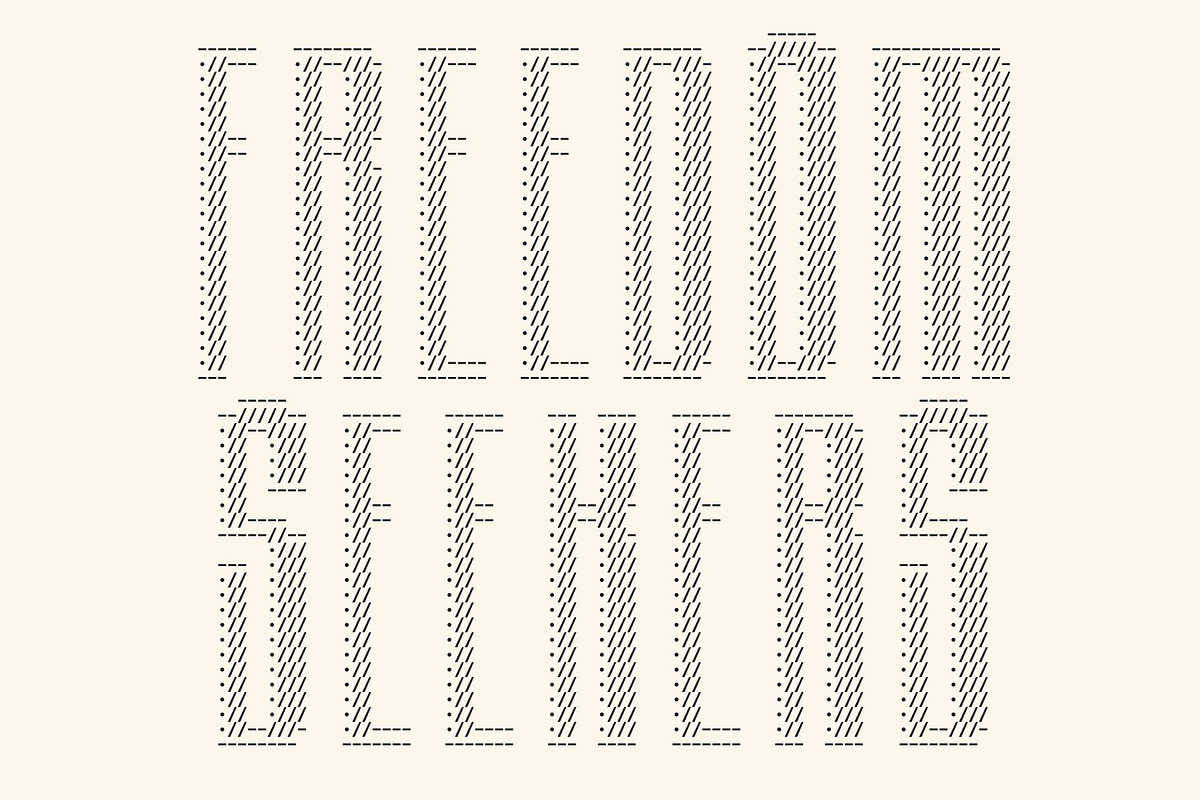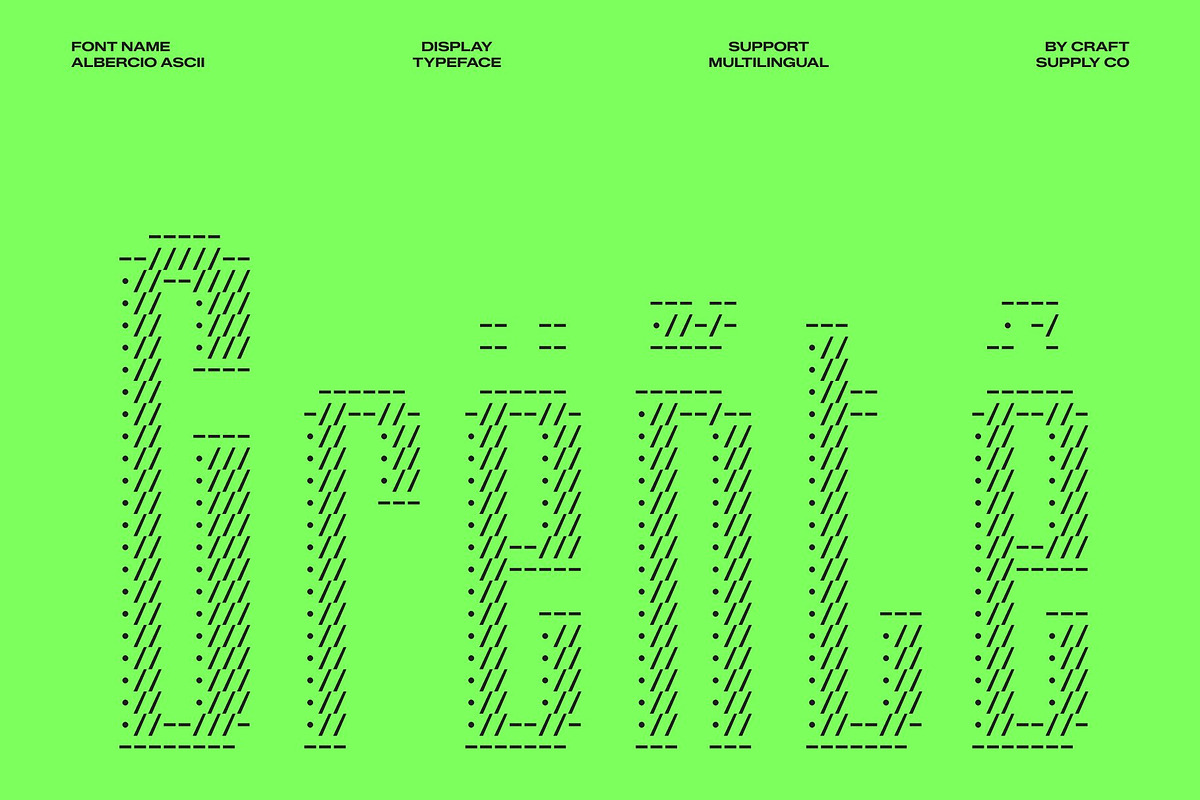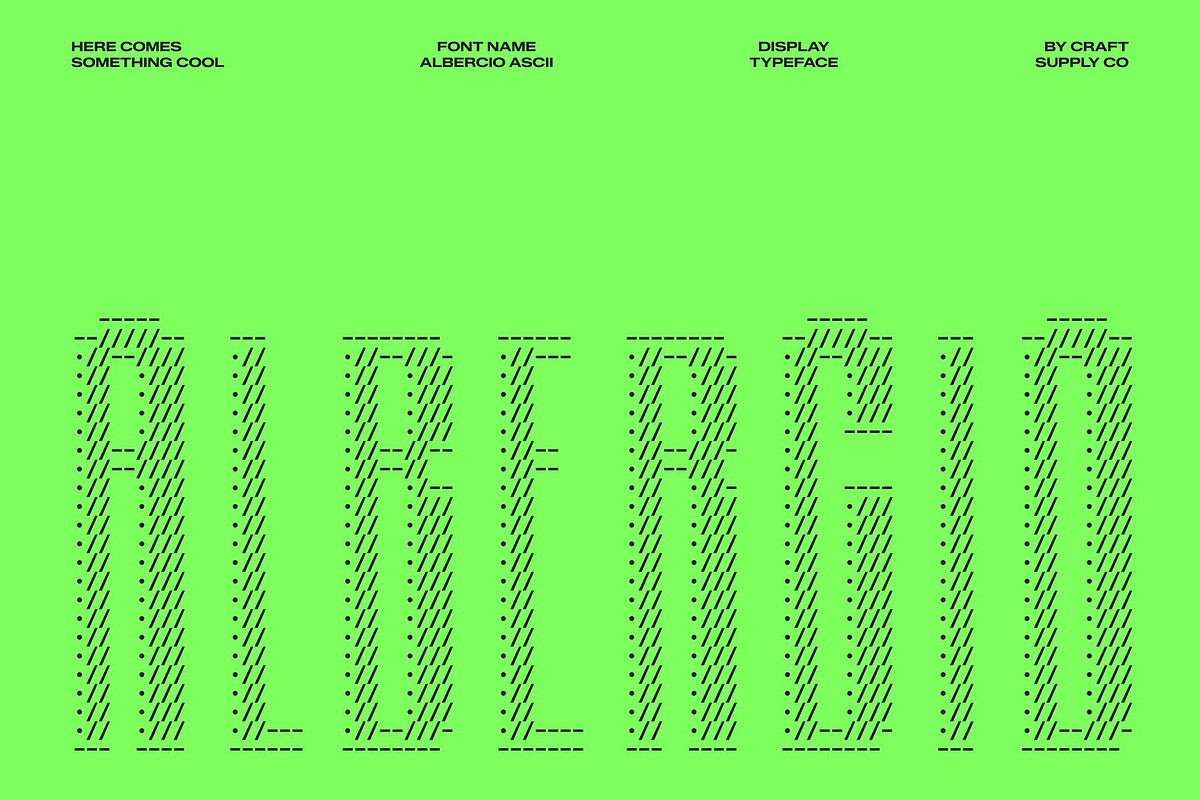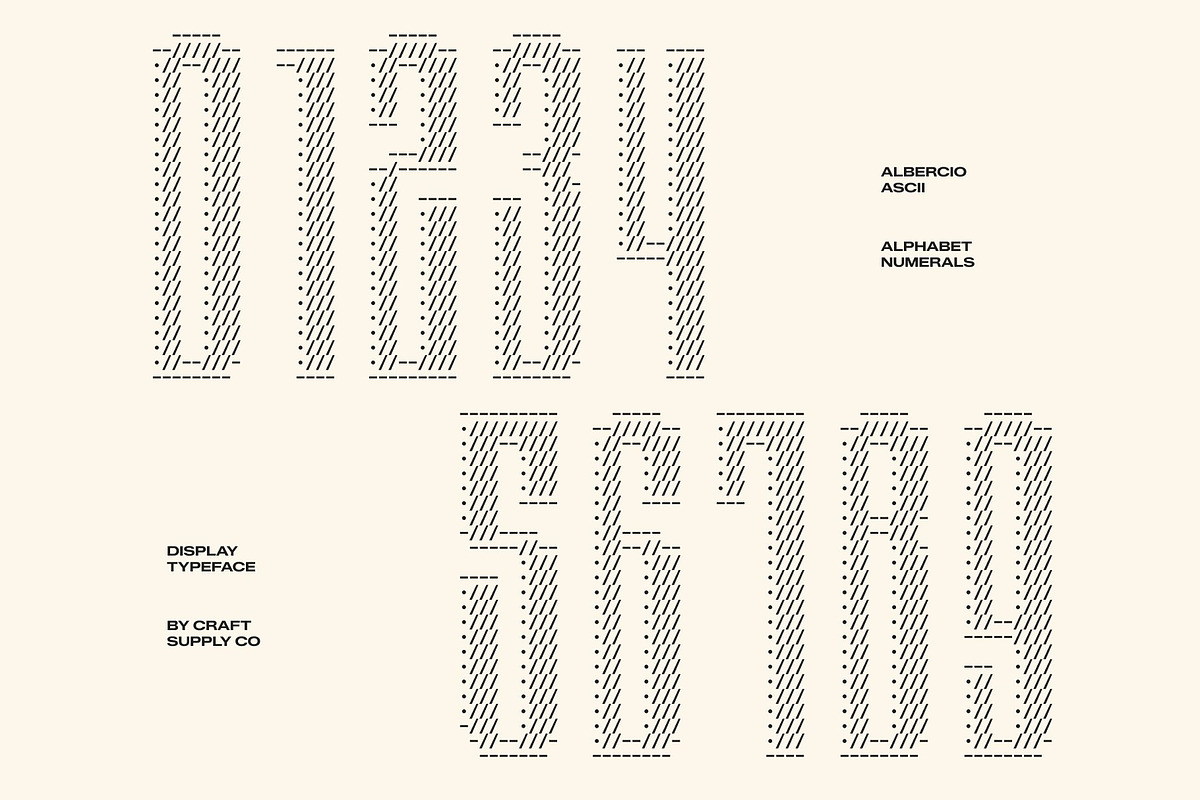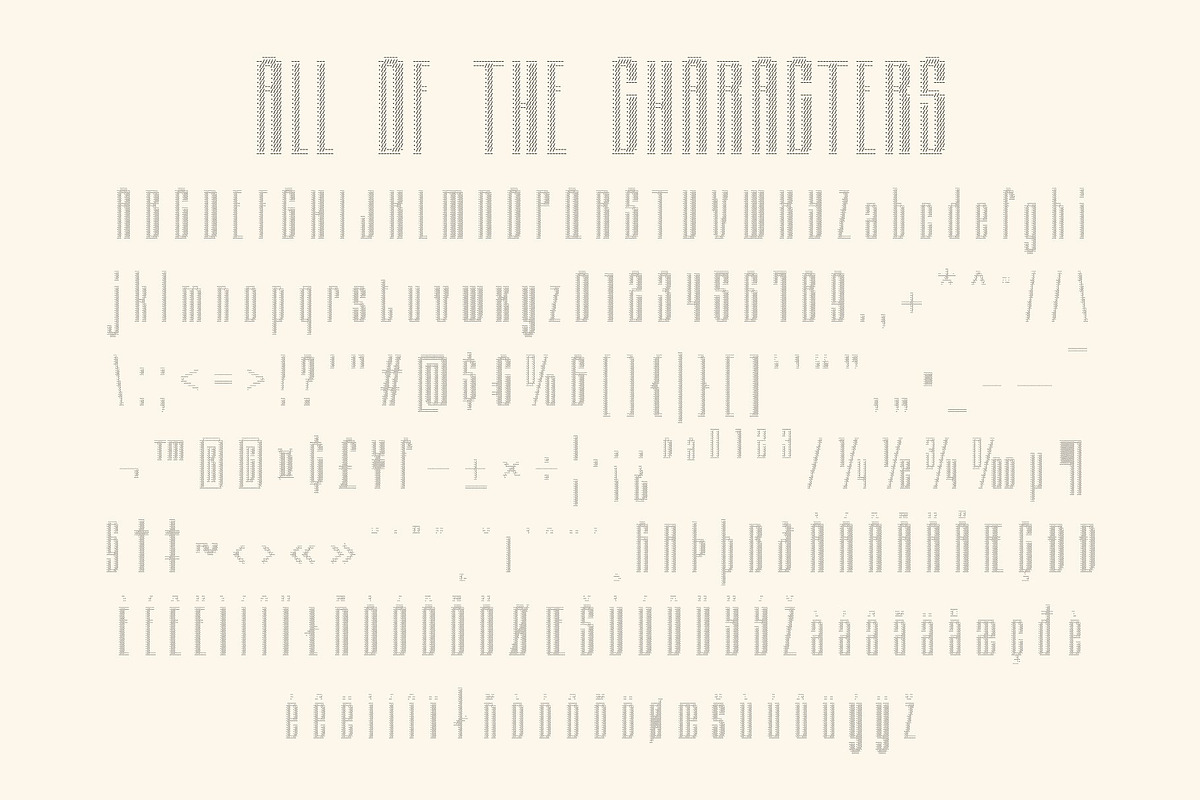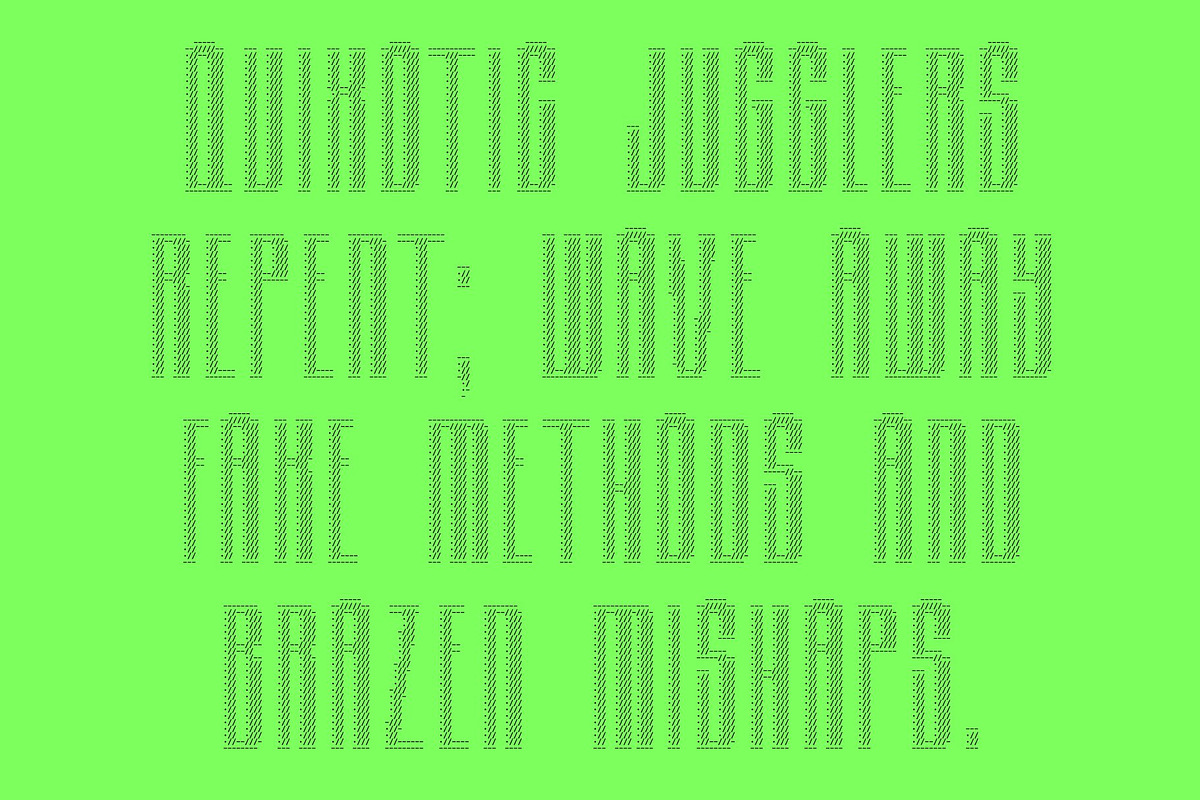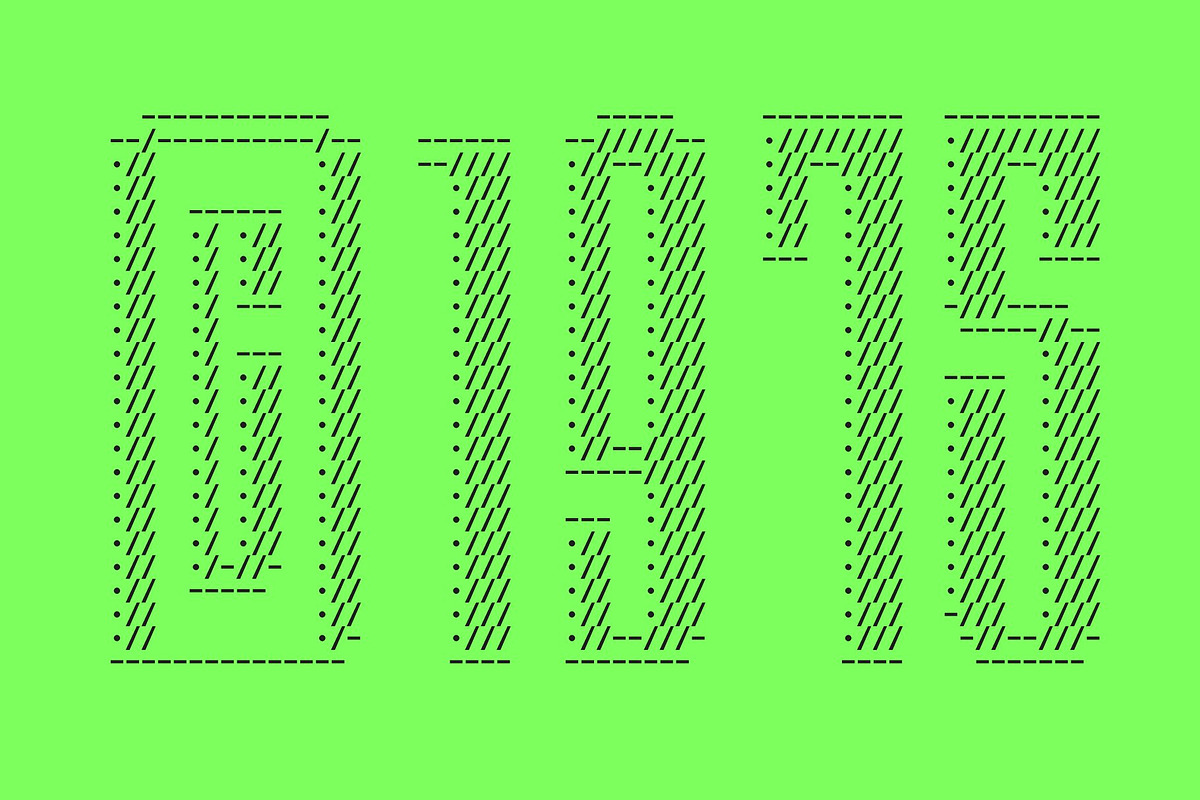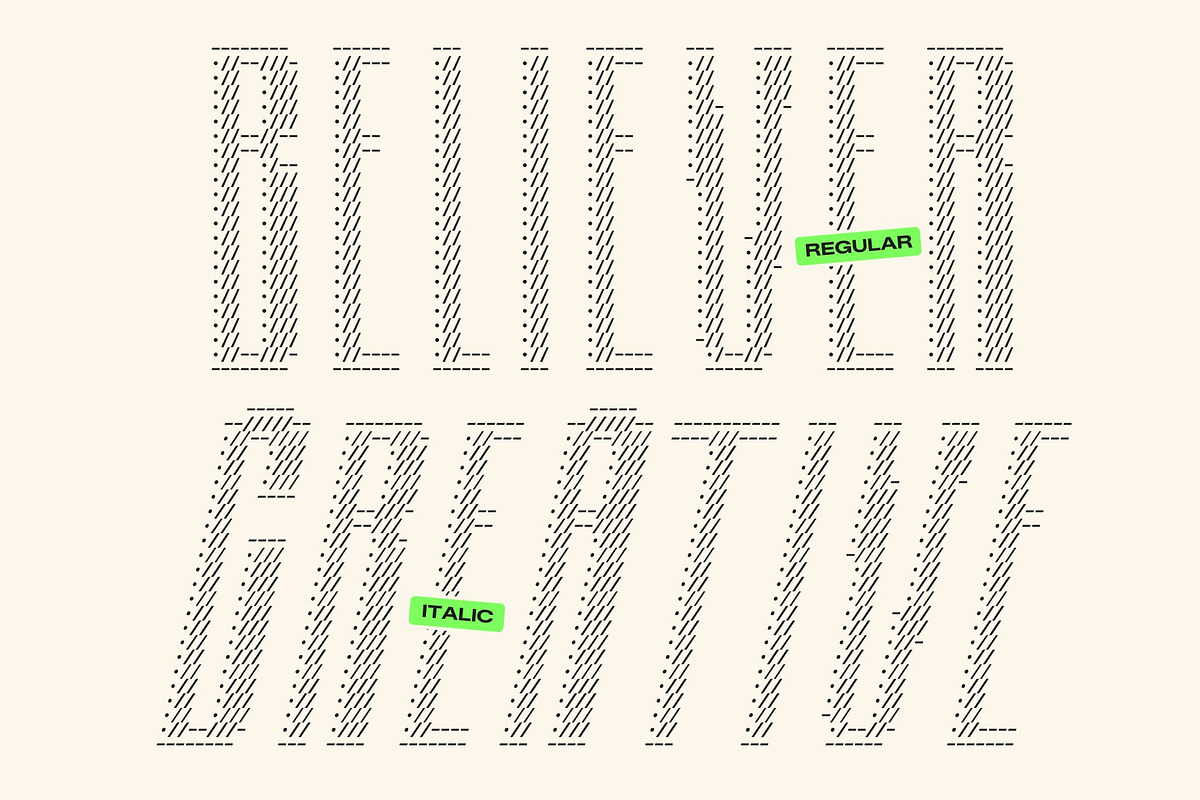
Albercio Ascii
Albercio Ascii – Captivating Display Font: Compact Power in Digital Form
Striking Compactness Reimagined in ASCII This font transforms the bold presence of a condensed sans serif into a visually compelling ASCII composition. Each character is crafted from carefully arranged symbols, turning simple text into a decorative digital structure that immediately captures attention.
Designed for Eye-Catching Display Built specifically for display use, this font thrives in headlines, posters, banners, and promotional graphics. The condensed letterforms allow designers to fit more content into limited spaces without sacrificing clarity or style. Its structured ASCII construction adds a unique texture that elevates any design, creating typography that feels modern, expressive, and impossible to ignore.
Effortless Elegance with Technical Charm Despite its compact form, this font maintains a refined and balanced appearance. Smooth curves and thoughtful spacing ensure readability, while the ASCII styling introduces a subtle technological character. This balance between elegance and digital detail gives the font a distinctive personality that feels both professional and creative.
Distinctive Impact for Branding and Creative Projects This font excels in branding, editorial layouts, tech-themed visuals, retro gaming graphics, and cyber-inspired artwork. It helps designers create strong visual hierarchy while delivering a memorable typographic voice. Whether used in logos, packaging, or digital interfaces, provides a compact yet powerful solution that transforms ordinary text into a striking visual statement.
Albercio Ascii Regular
Albercio Ascii Italic